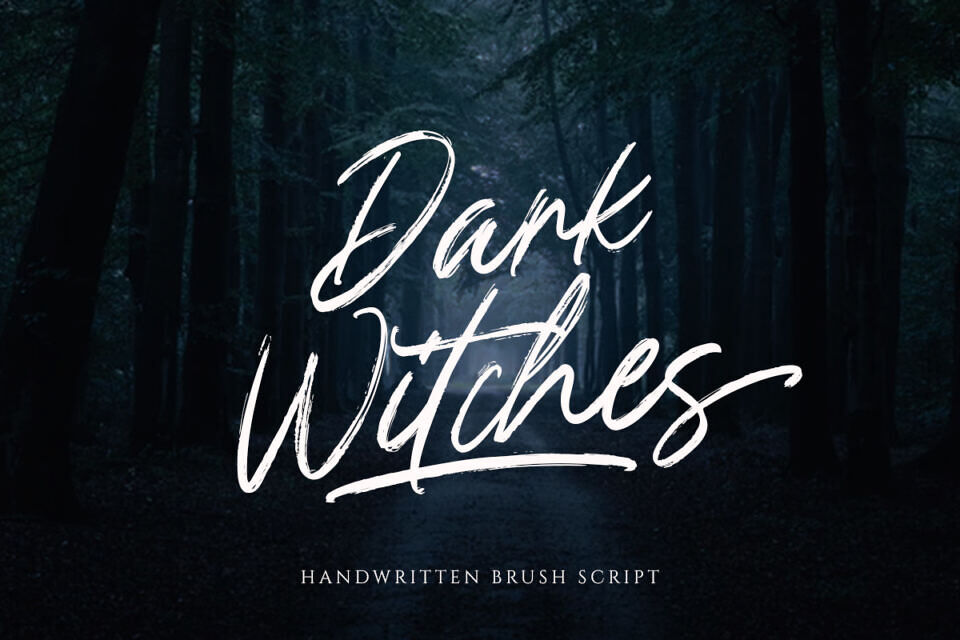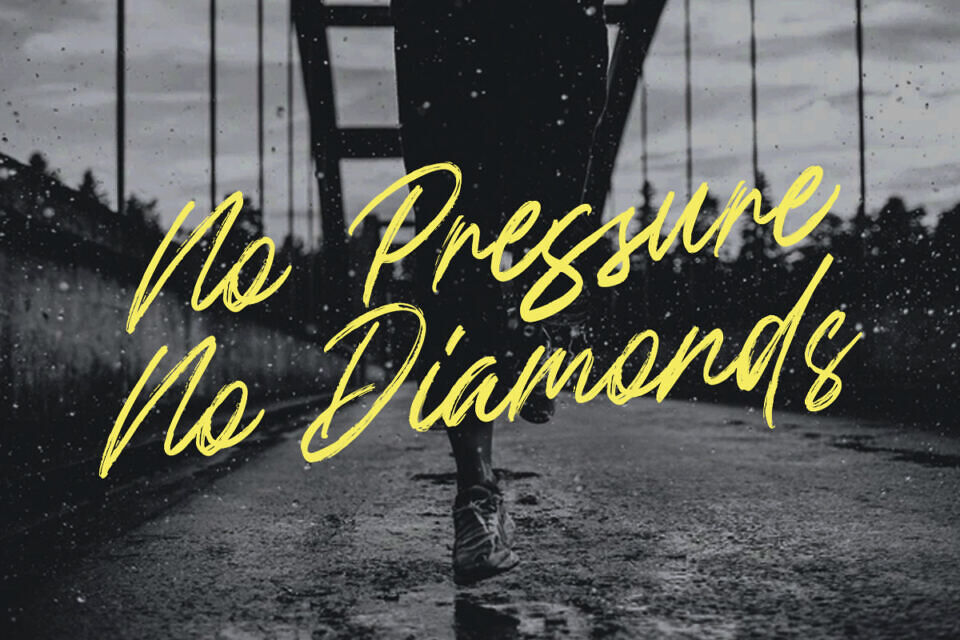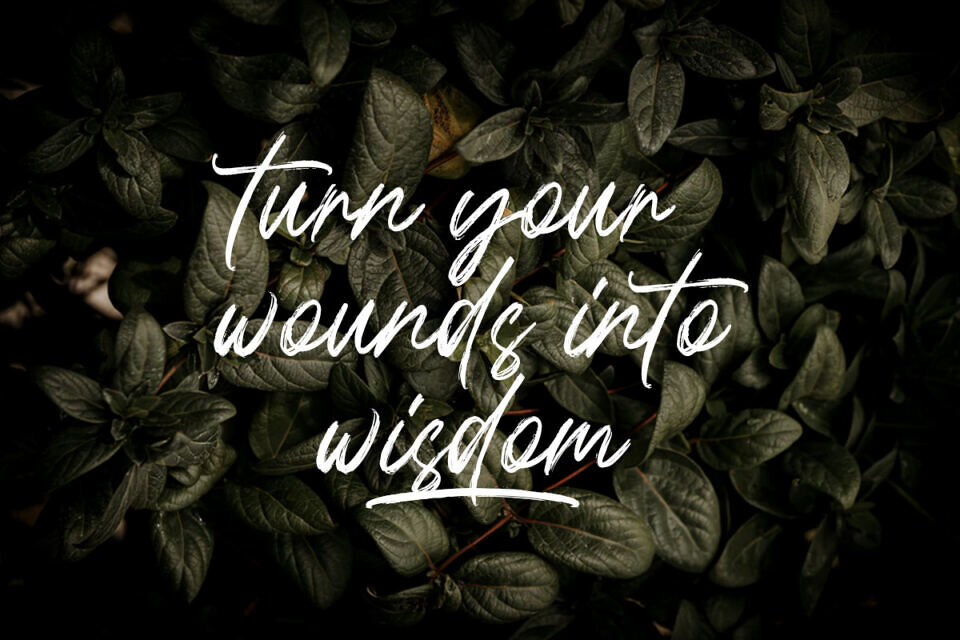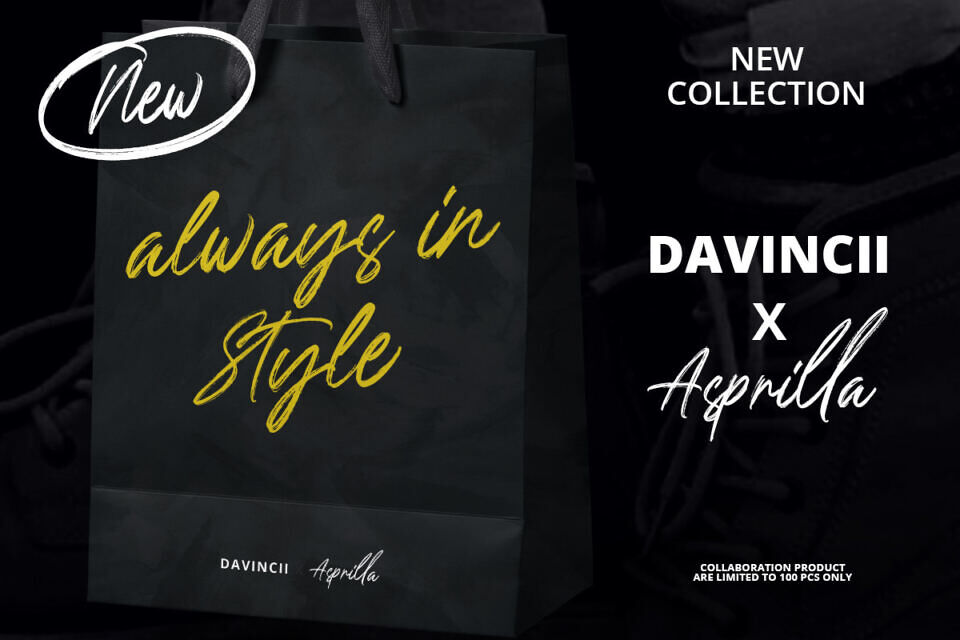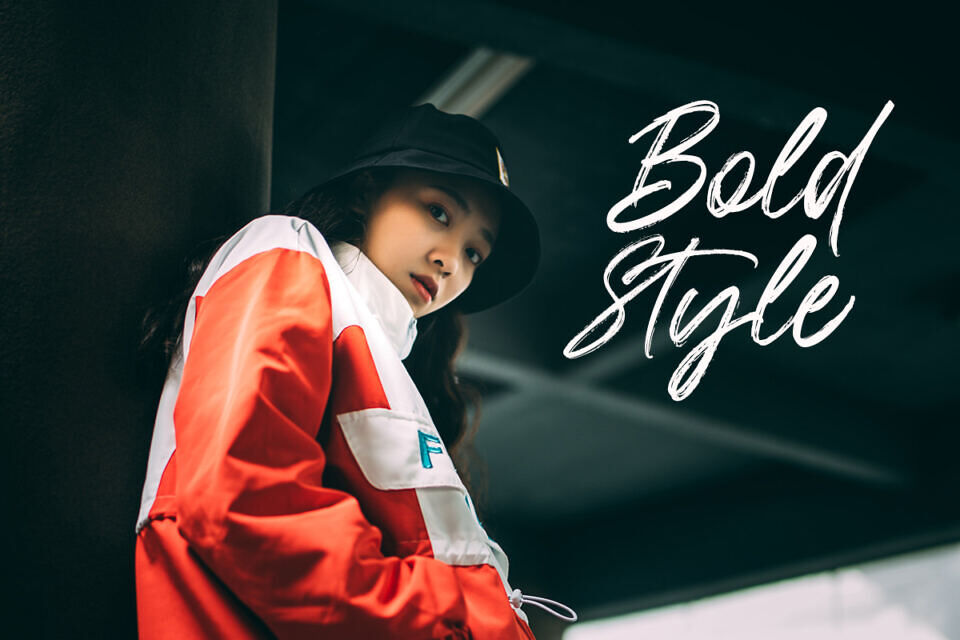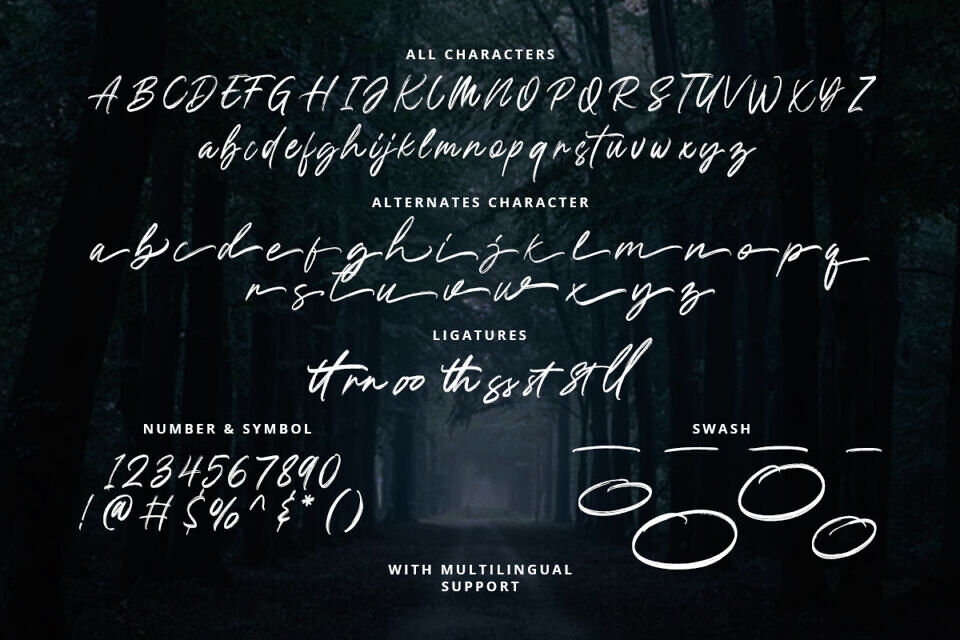
Introducing, Dark Witches a handwritten brush font. Dark witches is one kind of a font that is made for you who are looking for a handwritten textured brush font. This font work perfectly for branding, packaging, advertising, headline, logotype, etc.